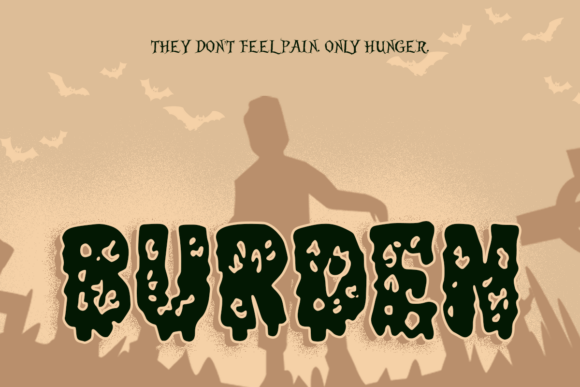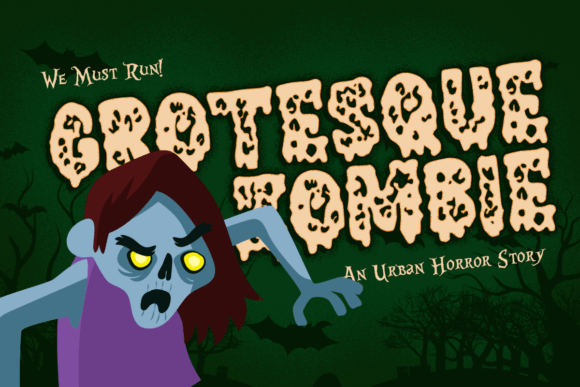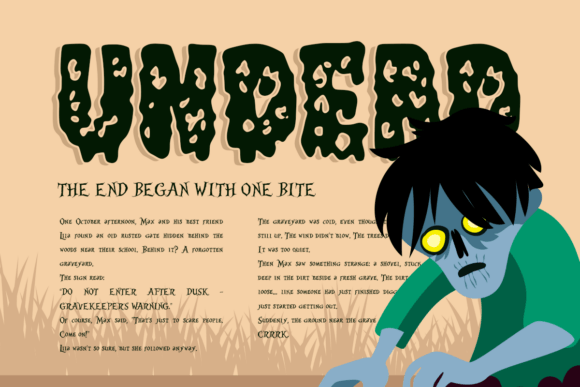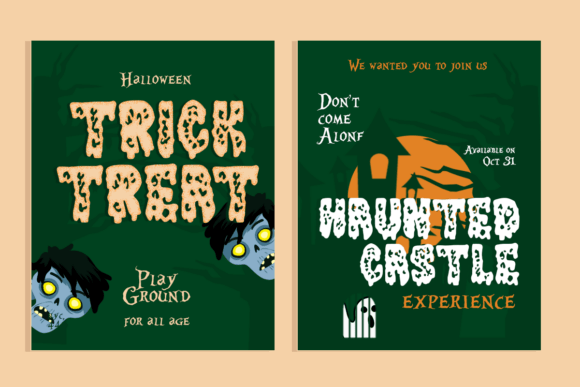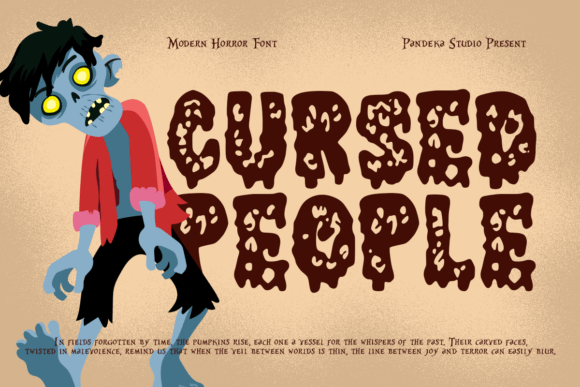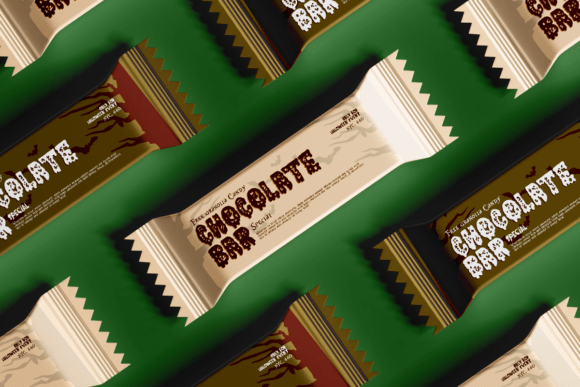
Freaky Fonts for Fearful Fun
It’s that time of the year when creativity takes a spooky turn. You’re brainstorming ideas for Halloween projects, and you need a font that screams ‘horror’ without scaring off your audience. You’re on the hunt for the perfect font that brings a balance of eerie and playful vibes to your designs. If this sounds like you, then get ready to fall in love with the Freaky Zombie Font.
This creepy yet fun display font is inspired by the textures of gooey zombies, horror comics, and haunted graveyards. It’s designed to add a quirky energy to your creative projects, making it perfect for Halloween posters, party invitations, and spooky branding. With its bold dripping shapes and irregular details, the Freaky Zombie Font is sure to bring your designs to life in a way that’s both scary and silly.
Freaky Zombie Font Key Features
- Unique Characteristics: The font features a distressed, hand-drawn style with a zombie-inspired theme, complete with bloodstains, tears, and other gruesome details.
Freaky Zombie Font Review
Overall, I’d say that the Freaky Zombie Font has some unique charm, but it also has its limitations. Here’s a balanced review of what I think.
- ✨ The font’s distressed texture is quite well done, giving it a creepy, post-apocalyptic vibe that’s perfect for Halloween-themed designs.
- ✨ The font’s versatility is another strong point – it can be used for a variety of purposes, from horror movie titles to punk rock band logos.
- ✨ The font’s bold, eye-catching letters make it perfect for grabbing attention in crowded environments.
- ⚠️ The font’s readability can be an issue, especially at smaller sizes or when used in long blocks of text.
- ⚠️ The font’s style may be too gimmicky for some designers, making it less suitable for more serious or professional projects.
I’d give the Freaky Zombie Font 3.5 out of 5 stars. While it’s a unique and attention-grabbing font, its limitations may make it less suitable for certain projects. If you’re looking for a fun, over-the-top font for a Halloween party or punk rock concert, this might be the perfect choice. But for more serious or professional projects, you might want to consider other options.
Use the Freaky Zombie Font to create spooky and eerie designs for Halloween, horror movies, or zombie-themed events.
Combine the font with other creepy elements like skulls, bones, and cobwebs to create a haunting atmosphere.
The Freaky Zombie Font is perfect for:
- Halloween party invitations and decorations.
- Horror movie posters and trailers.
- Zombie-themed merchandise like t-shirts and stickers.